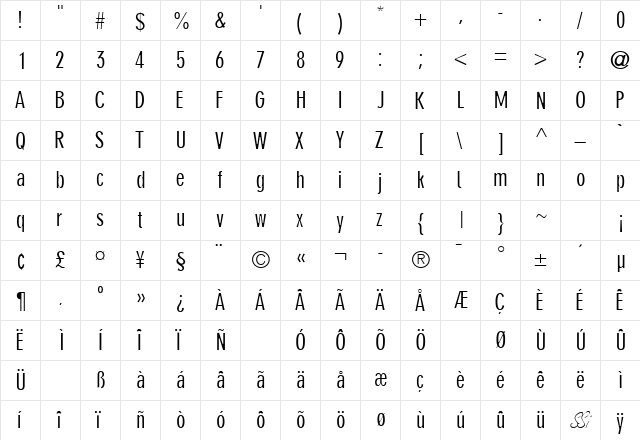
ParallaxGroteskCondSSK Regular Font Preview
ParallaxGroteskCondSSK Regular
ParallaxGroteskCondSSK Regular Font Details
Design Context for ParallaxGroteskCondSSK Typeface
ParallaxGroteskCondSSK has the quiet confidence of well-executed sans-serif typography: versatile, unobtrusive, and dependable at any size. Its narrow stance lets it pack a punch even in space-constrained designs.
Font Pairing: Works well alongside a characterful serif or display font that can carry the expressive load while ParallaxGroteskCondSSK handles the functional copy.
Pro Tip: Try ParallaxGroteskCondSSK in all-caps with moderate tracking for navigation and label copy — it performs well in systematic UI contexts.